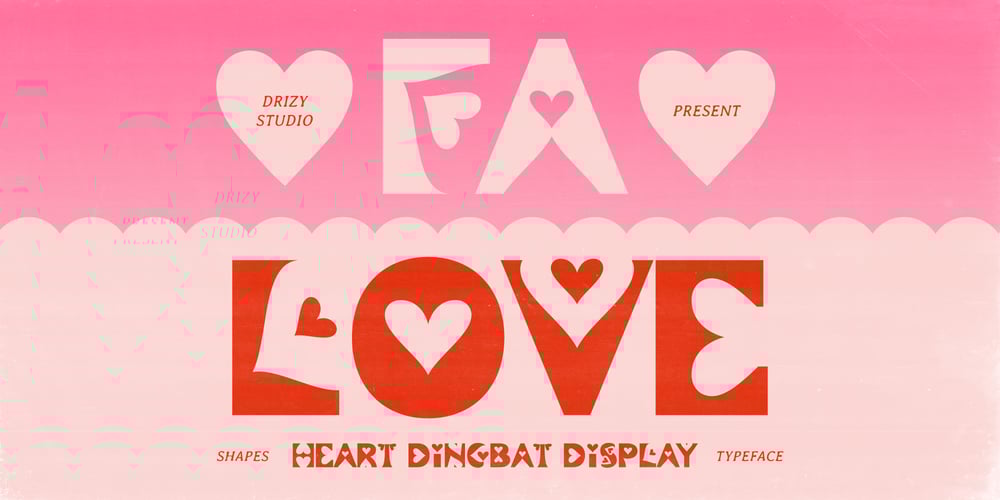
Falove Font Family was designed by Panca Ahmadi Hasan and published by Drizy Font. Falove contains 1 styles and family package options. Falove – Heart Dingbat Display FontIndulge in the enchanting world of love and romance with Falove – Heart Dingbat Display Font. Immerse your designs in the tender and sweet vibes reminiscent of your favorite Valentine’s Day movies. This charming typeface is a visual symphony of love, adorned with heart-shaped glyphs that evoke the warm, fuzzy feelings of a romance.Falove features: Character Set Punctuation & Numbers Multilingual Support Elevate and explore the design possibilities with this Heart Dingbat Font!